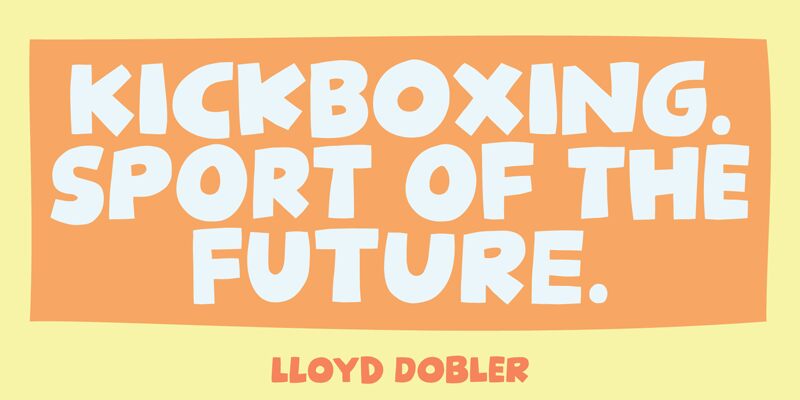
Surt Show DEMO
Surt Show, designed by Pizzadude, is a dynamic and bold display font that bursts with cartoonish charm. Its thick, playful strokes and exaggerated forms bring a sense of fun and adventure to any project. The solid weight gives it a strong visual presence, making it impossible to ignore.
This font's unique character makes it perfect for eye-catching headlines, kid-friendly content, comic-style graphics, or any design that aims to delight and entertain its audience. Surt Show adds a distinctive flair that's both approachable and memorable, ensuring your message stands out with personality and vibrancy.